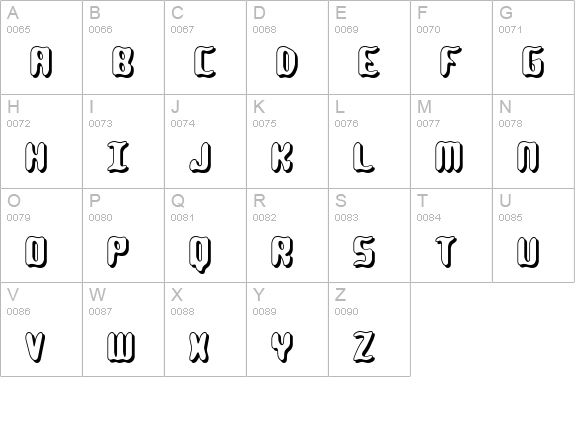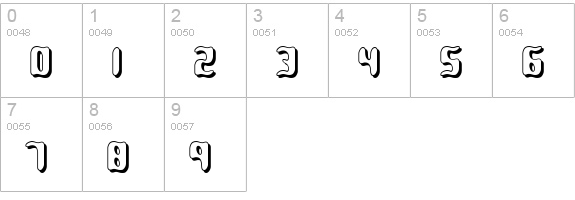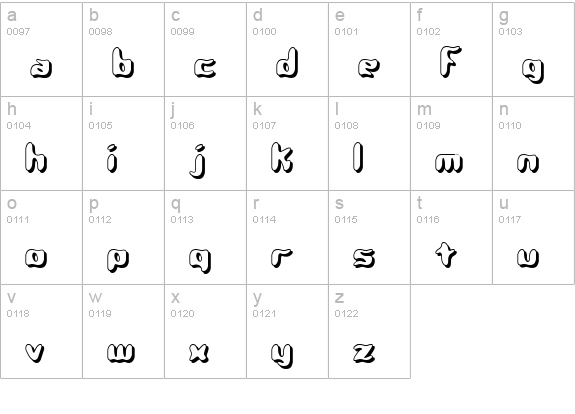
Qlumpy Shadow BRK Font Details
Qlumpy Shadow BRK is a beautifully crafted font that offers a unique blend of elegance and playfulness. With its charmingly irregular letterforms, this font adds a touch of whimsy to any design project. The bold, shadowed style of Qlumpy Shadow BRK makes it perfect for eye-catching headlines, logos, and signage. One of the best things about Qlumpy Shadow BRK is that it is absolutely free! You can easily download this font from FontsMarket.com and start using it in your designs right away. Whether you're a professional designer or a hobbyist, Qlumpy Shadow BRK is a valuable addition to your font collection. The versatility of Qlumpy Shadow BRK is another aspect that sets it apart. It works well in both print and digital mediums, ensuring that your designs will look stunning no matter where they're displayed. The carefully crafted letterforms make each word feel like a work of art. Qlumpy Shadow BRK's attention to detail is truly impressive. The subtle curves and precise lines give the font a polished and refined look. Despite its sophistication, Qlumpy Shadow BRK still manages to maintain a sense of fun and playfulness, making it suitable for a wide range of design projects. Whether you're creating invitations, posters, or social media graphics, Qlumpy Shadow BRK will add a touch of charm and personality to your work. Its bold presence demands attention and ensures that your message will be conveyed with impact. In conclusion, Qlumpy Shadow BRK is a must-have font for any designer looking to add a touch of whimsy and elegance to their projects. And the best part? It's completely free! Don't miss out on this opportunity to enhance your designs with Qlumpy Shadow BRK – head over to FontsMarket.com and download it today!